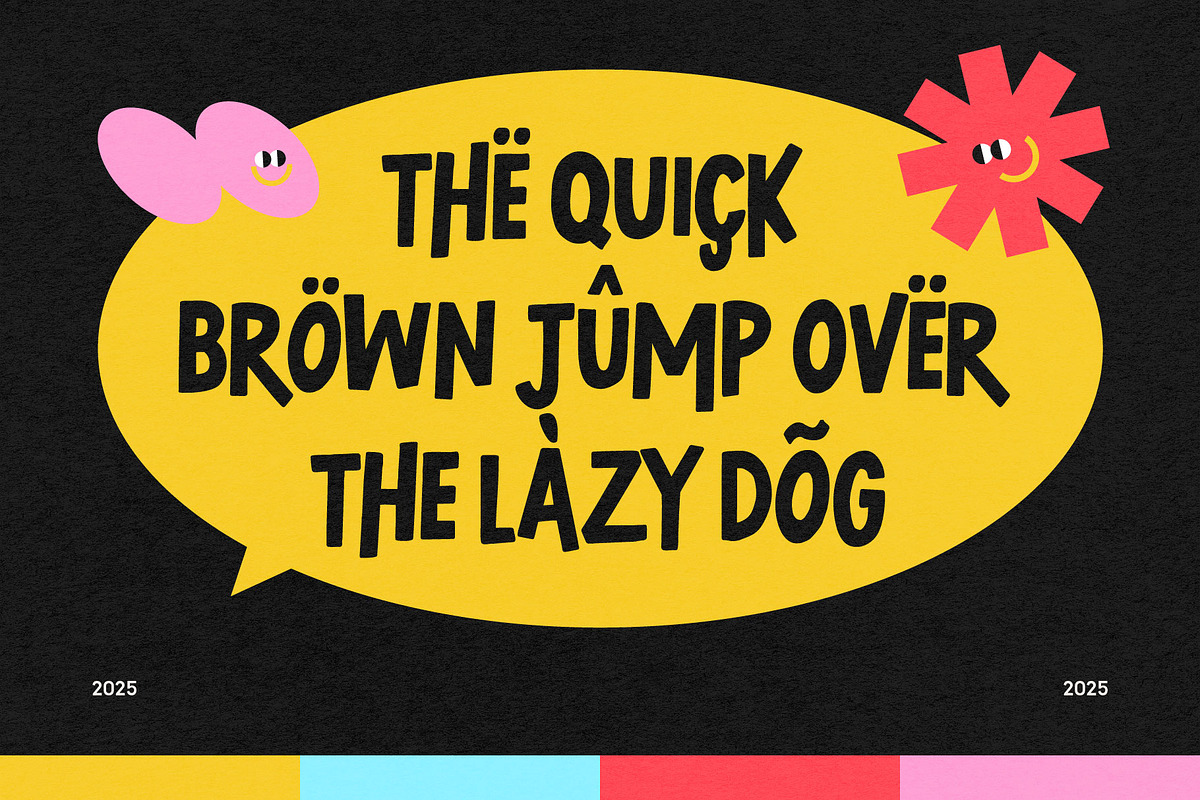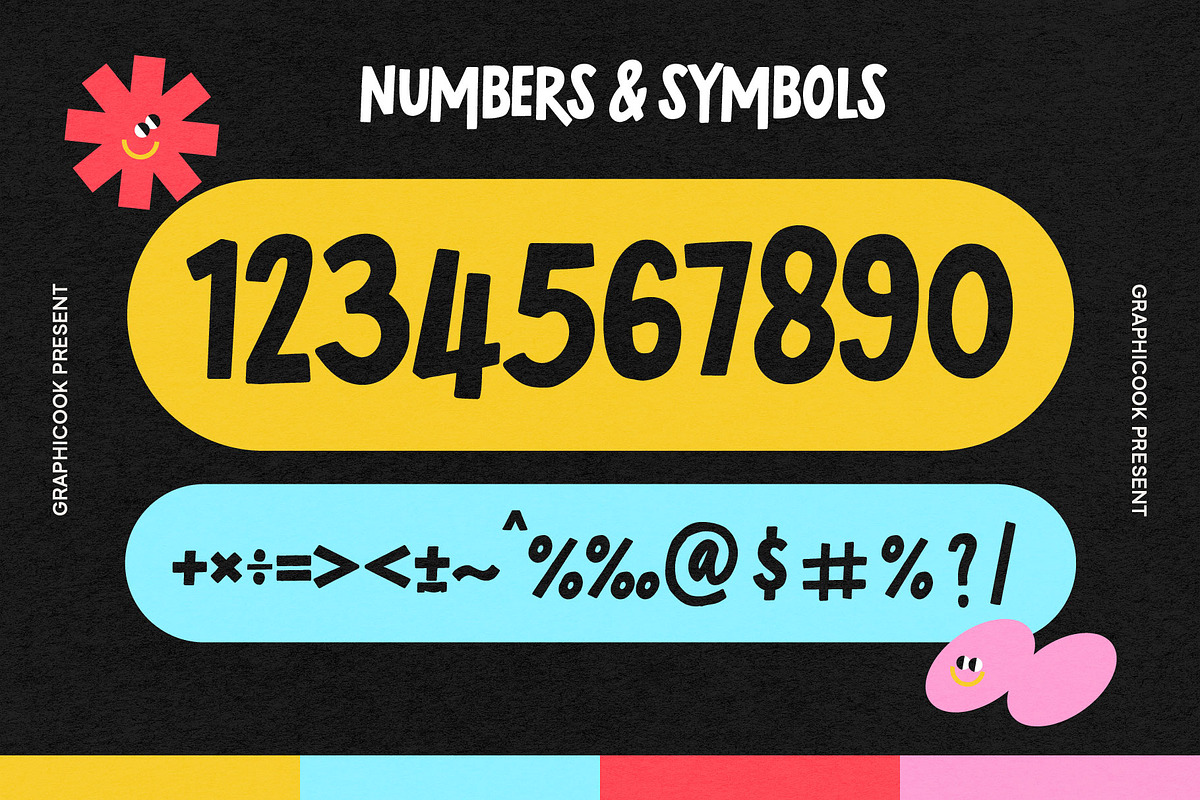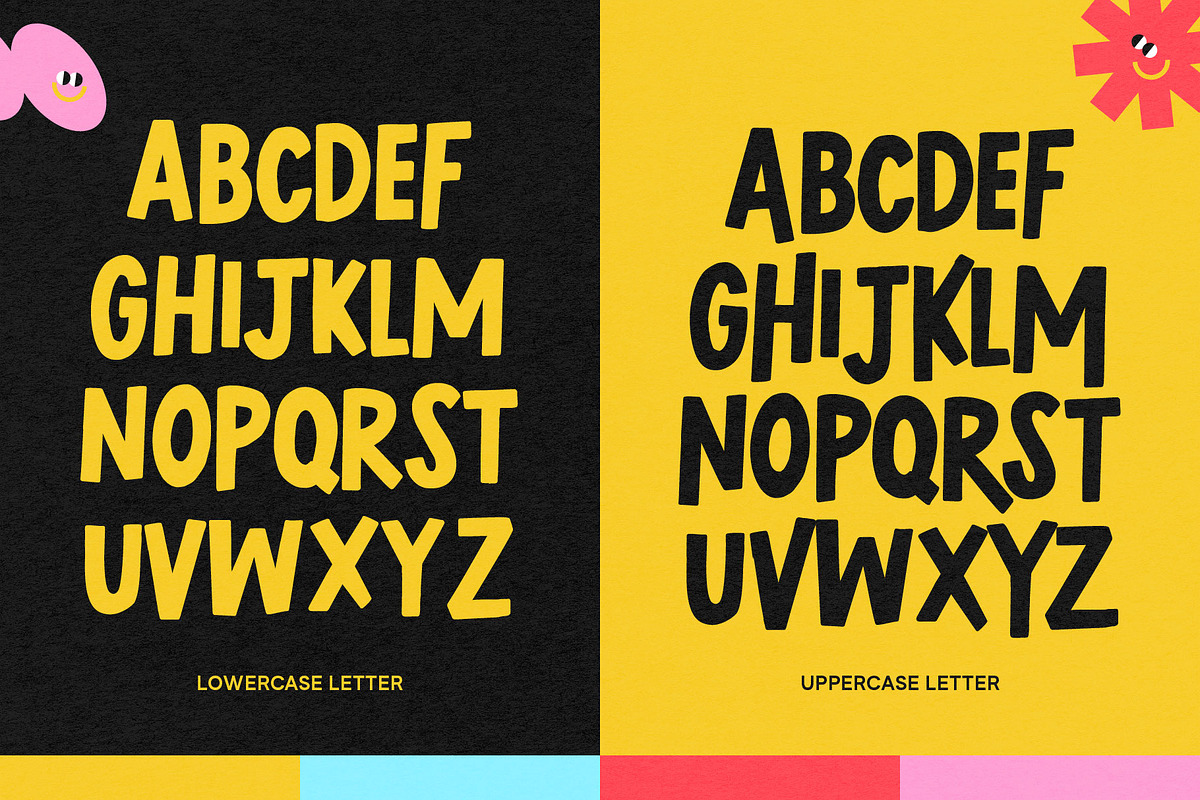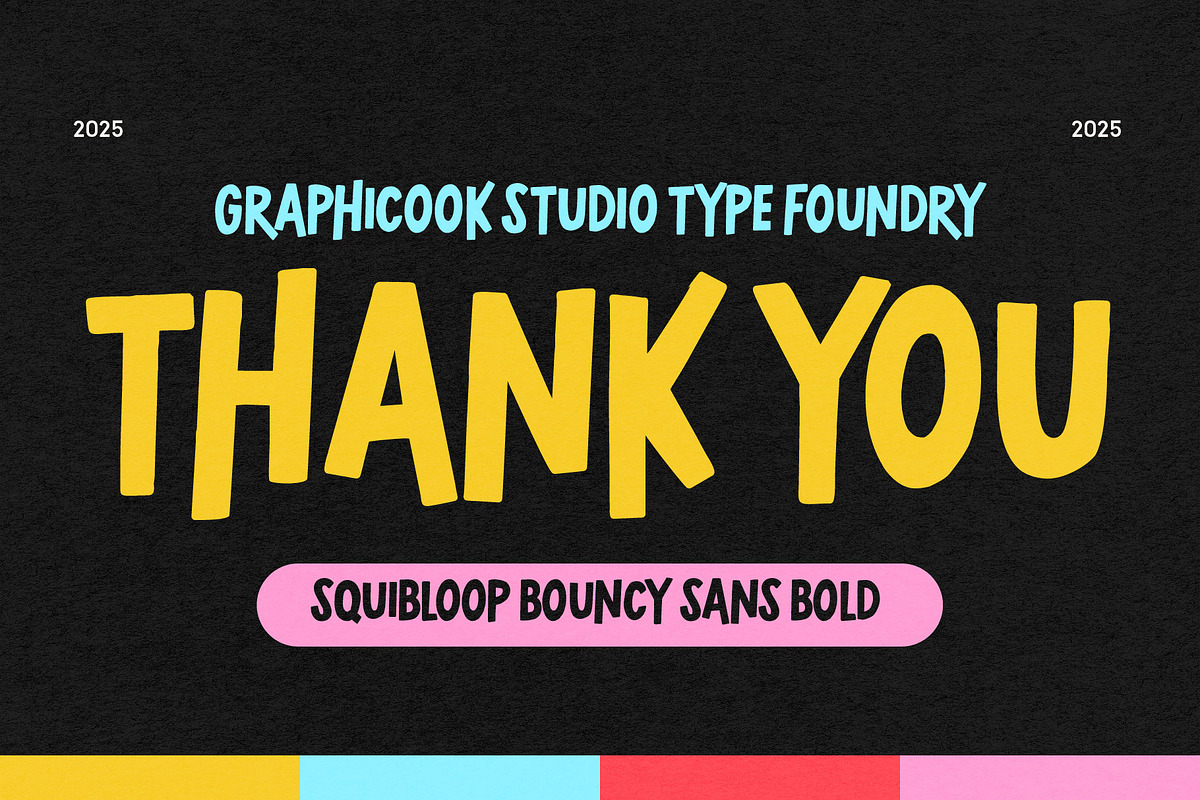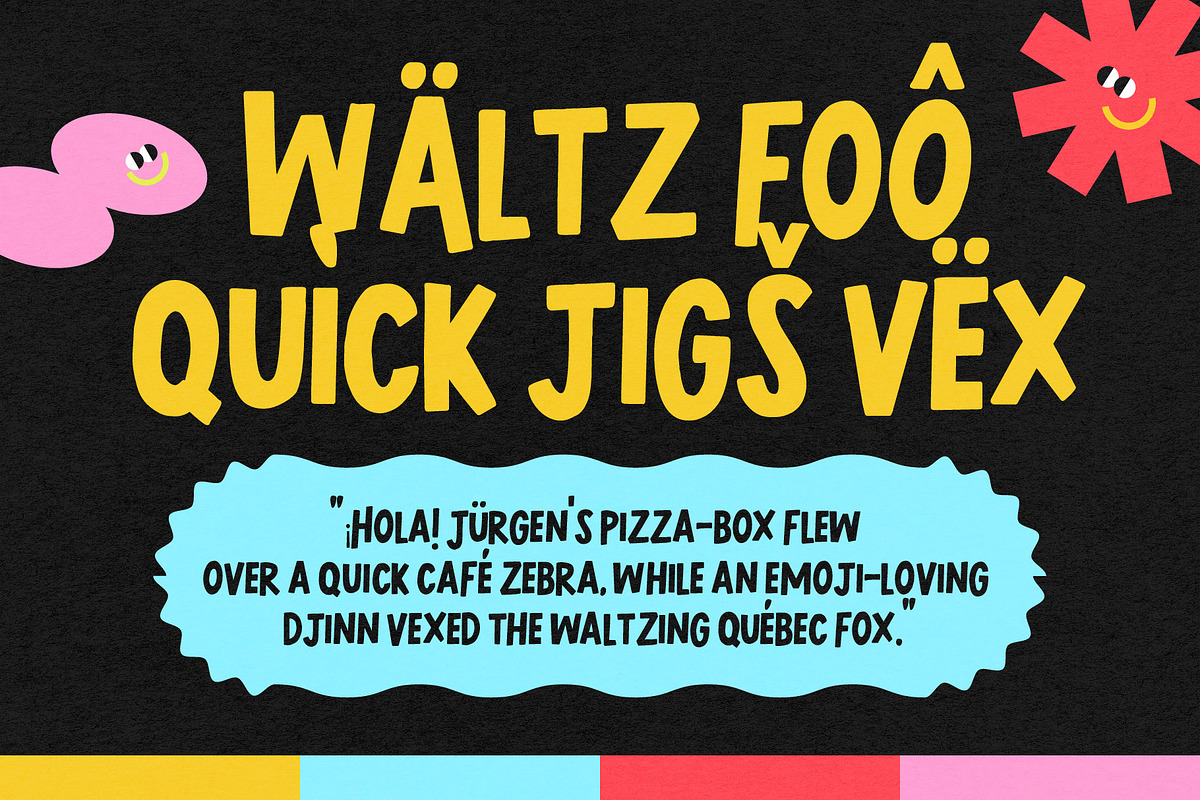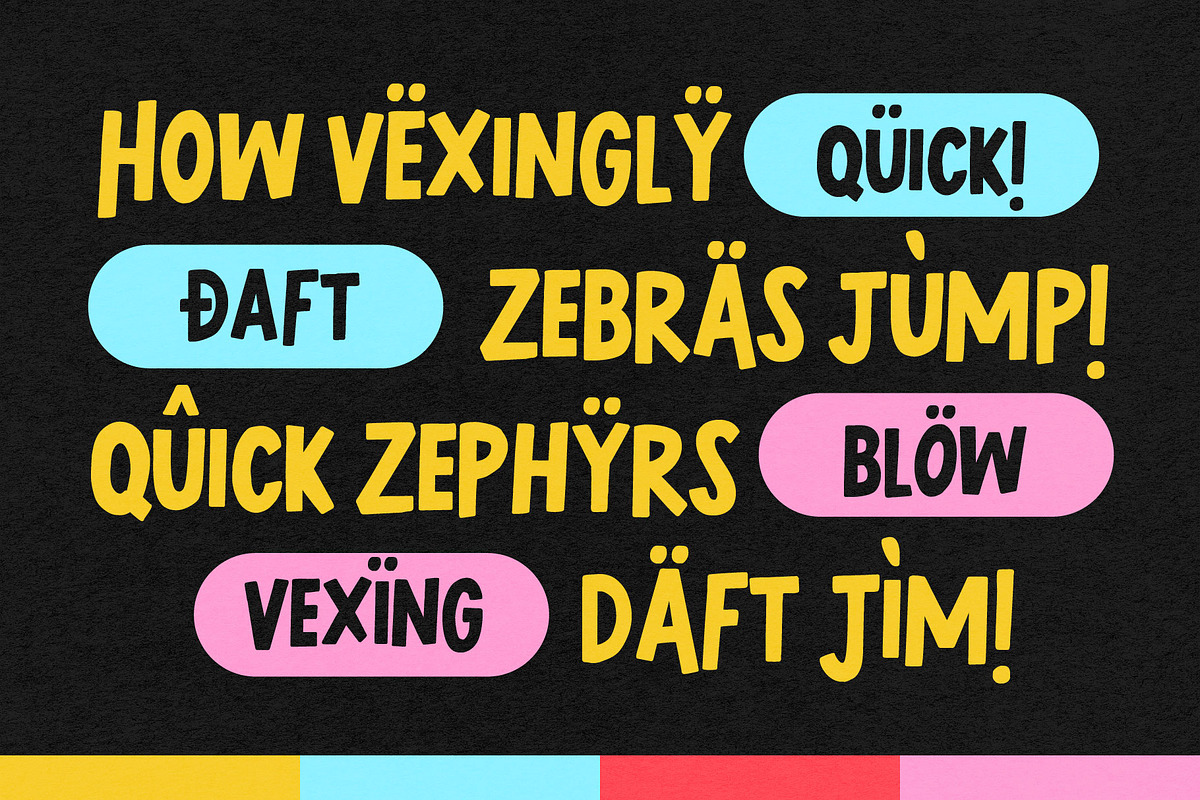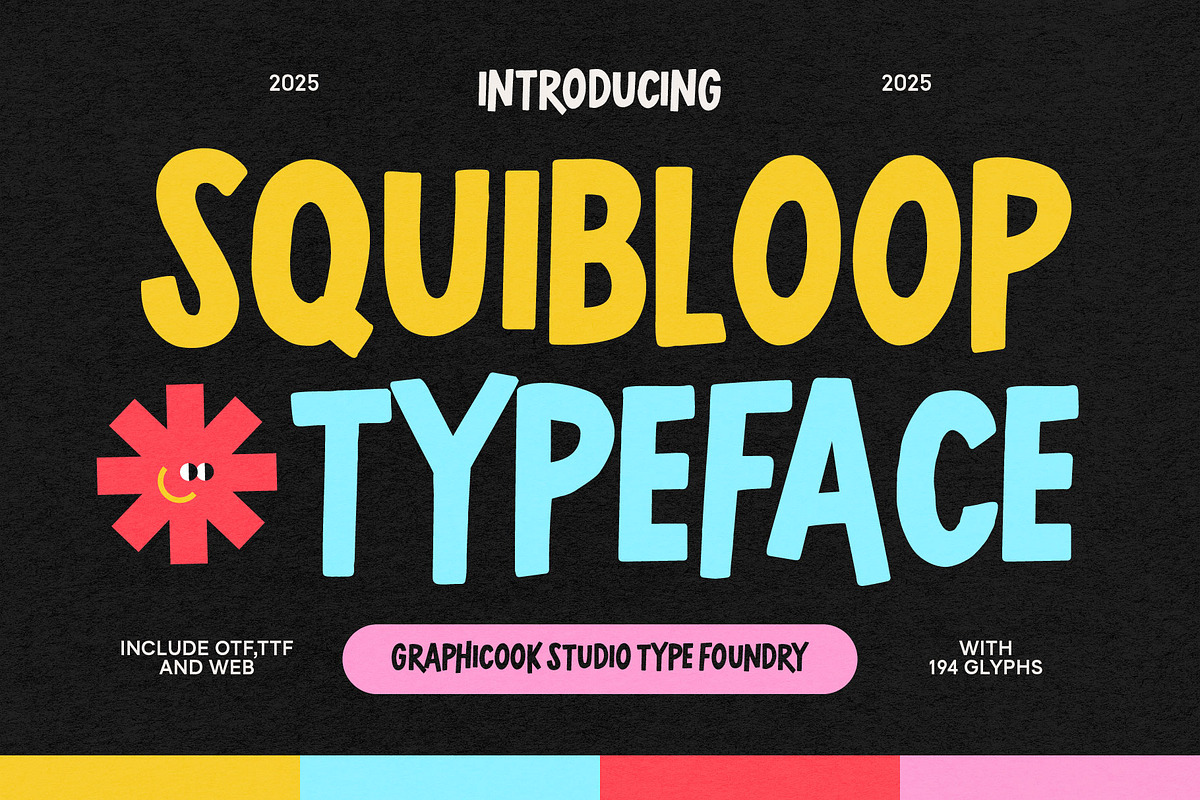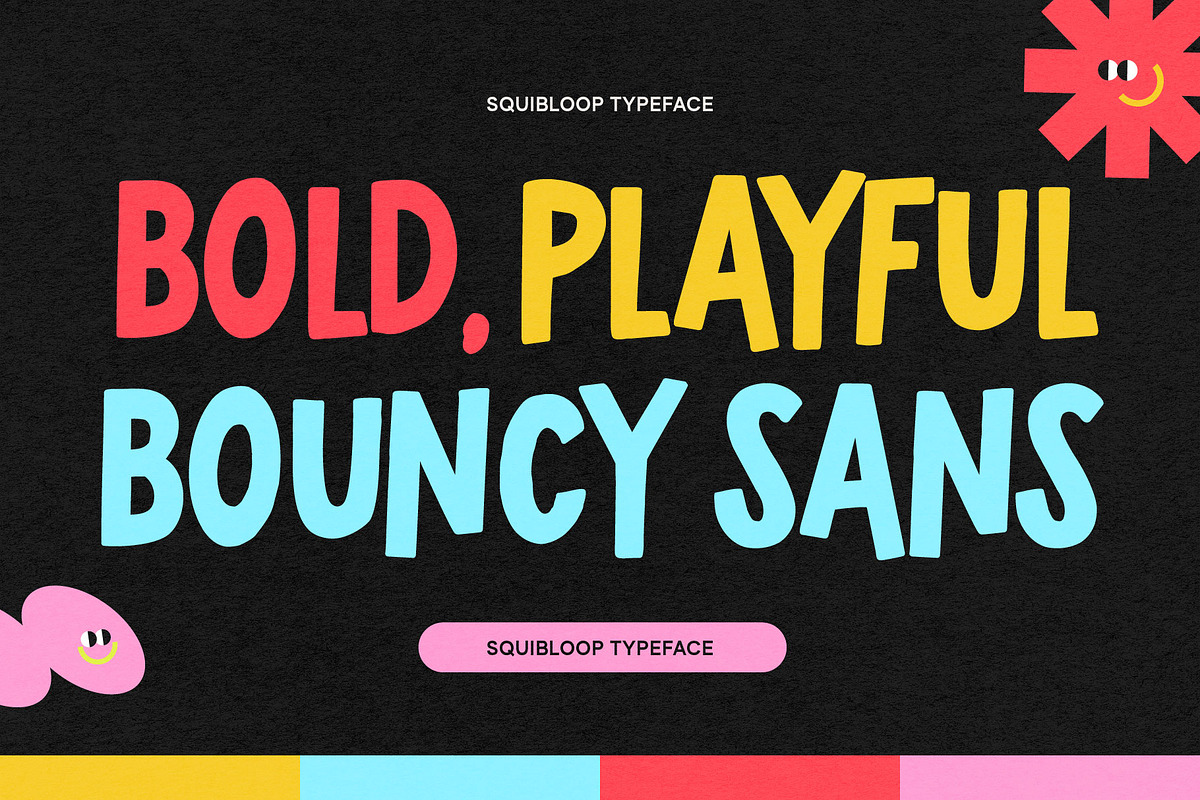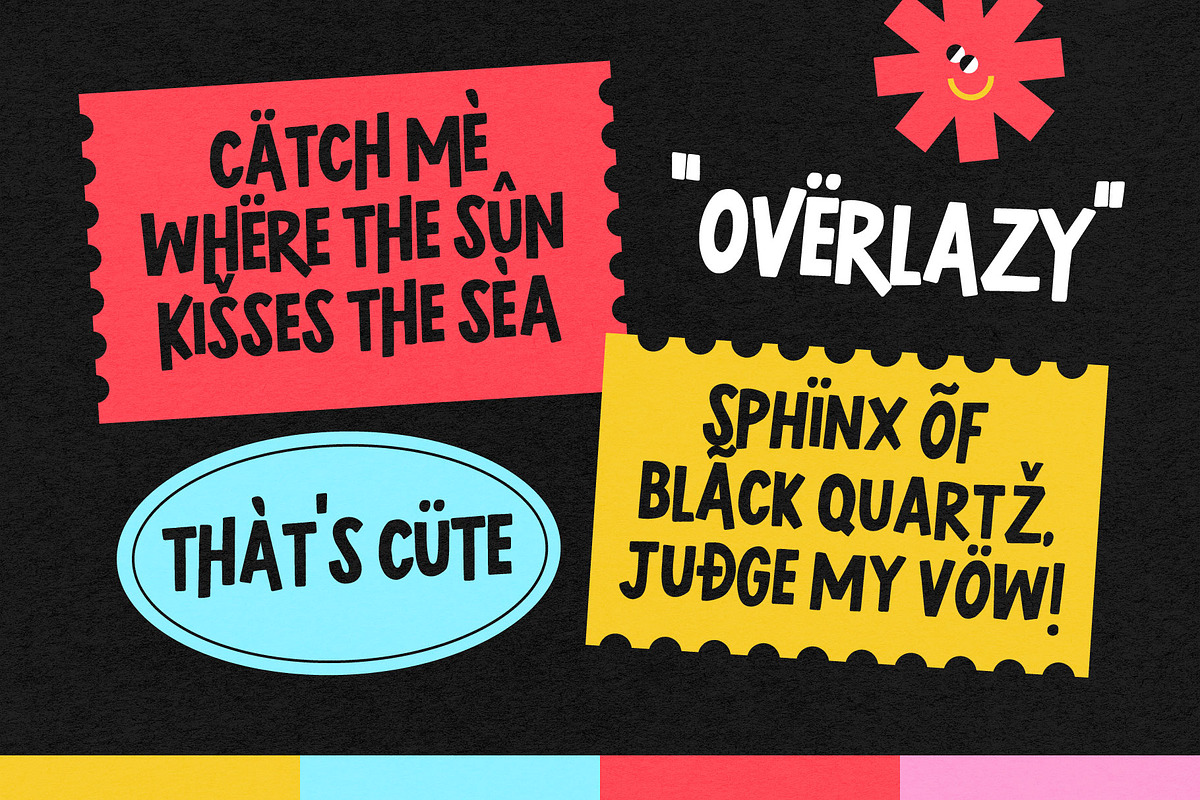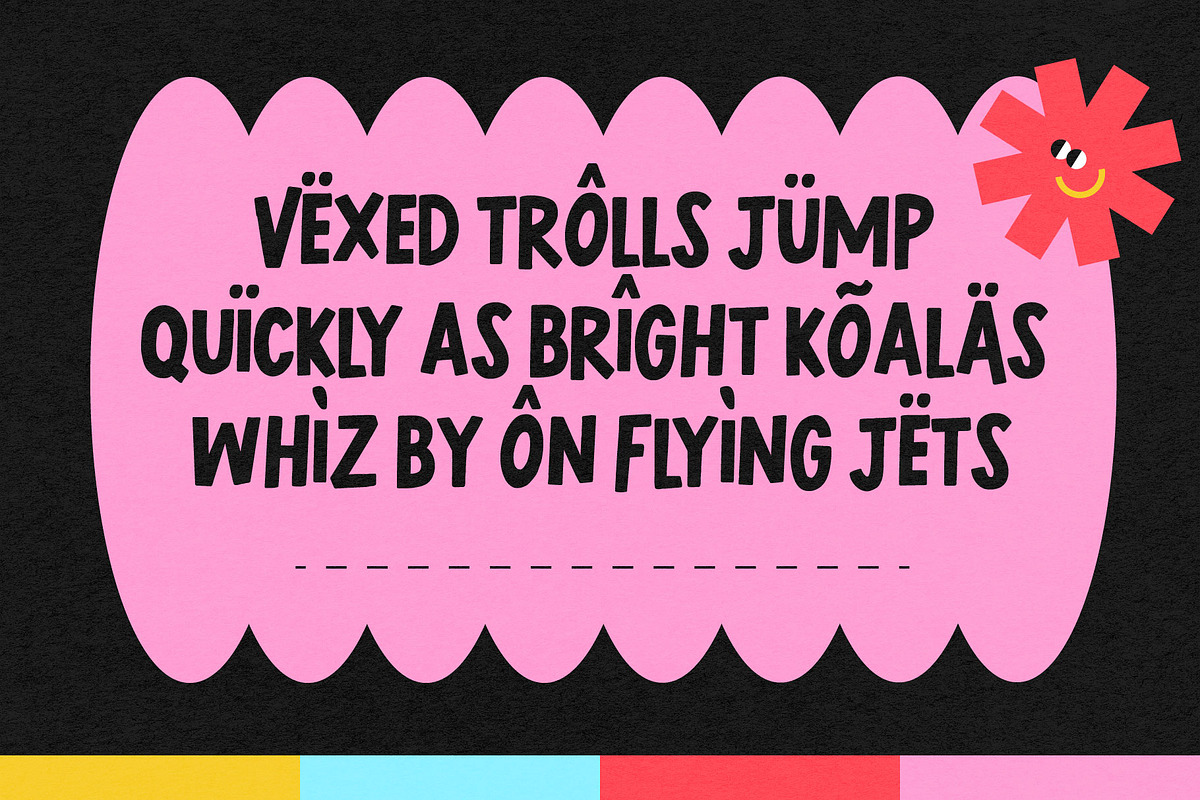
Squibloop
Squibloop is a playful sans-serif font with cheerful, energetic shapes. Its quirky style makes it perfect for fun, youthful, and vibrant design themes.
It is perfect for headlines, logotypes, magazines, packaging, quotes, movies, games, cover albums, book covers, and flyers, it's a perfect solution for creating eye-catching designs that stand out in any context.